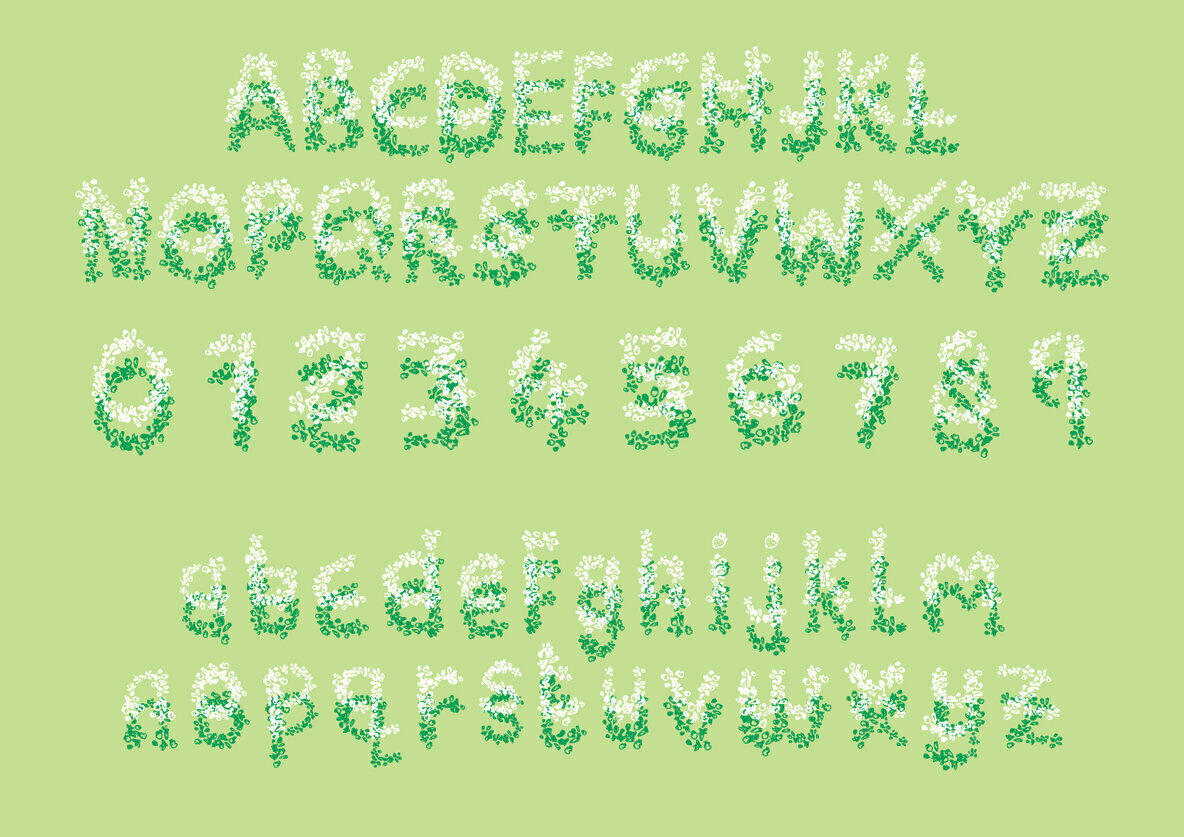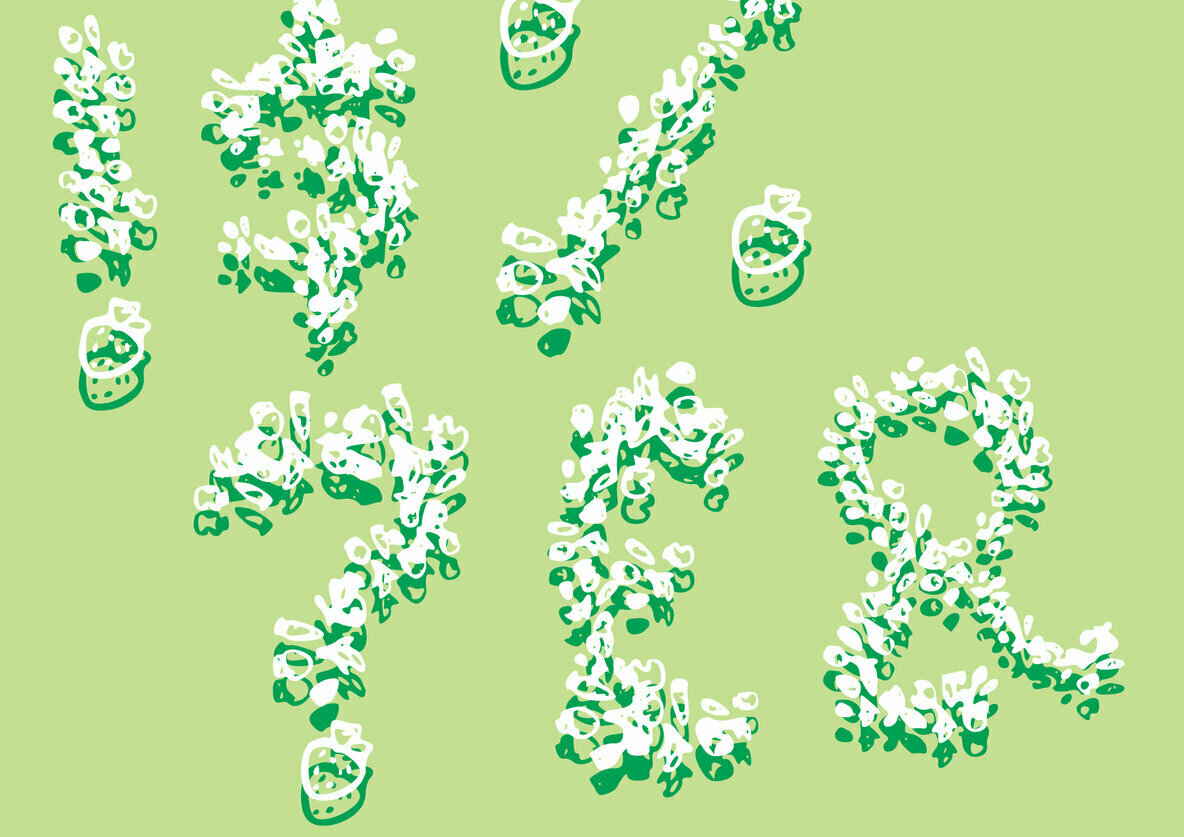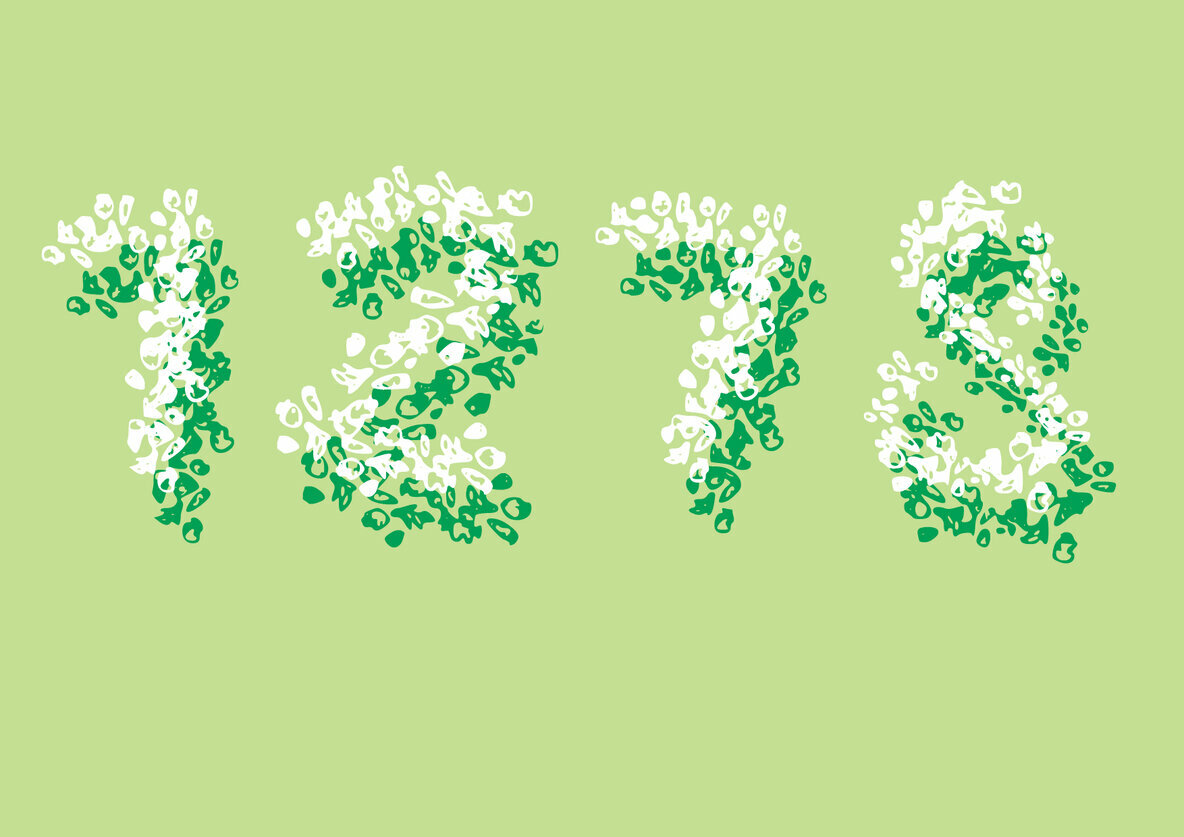
Five A Day Font
Five A Day
Five A Day is a sweet display font. Friendly and a little bit quirky, this font is the perfect fit for all of your logos, branding, social media, and crafty DIY projects with a health food theme!